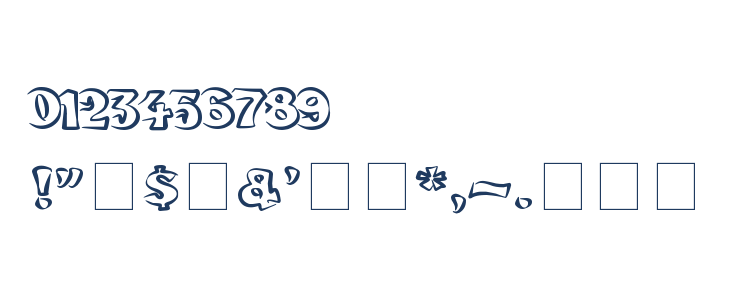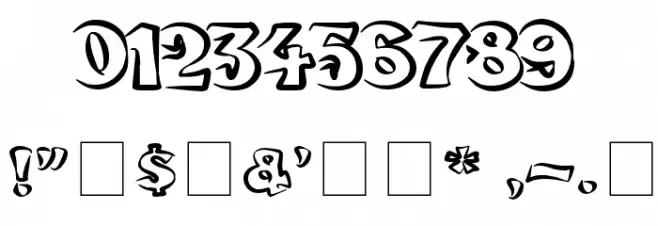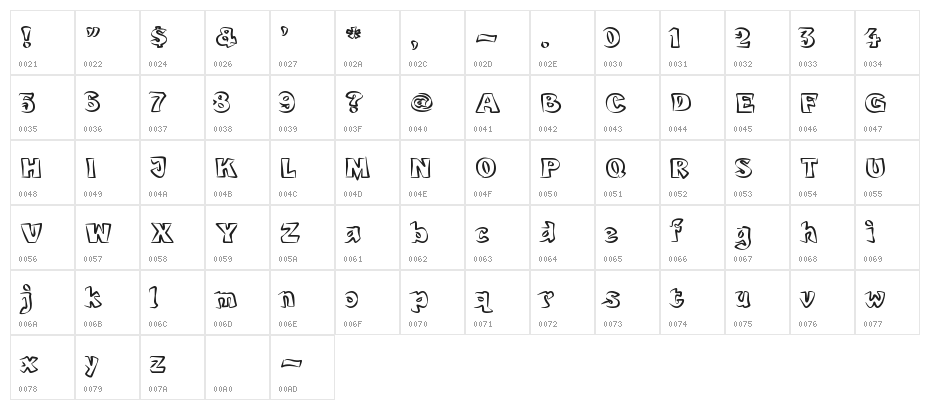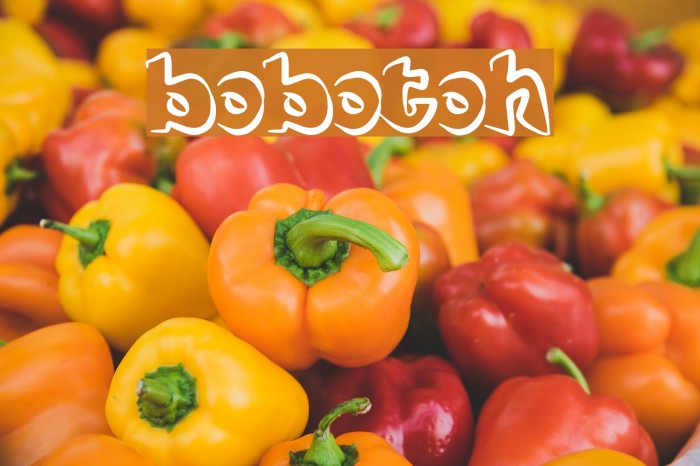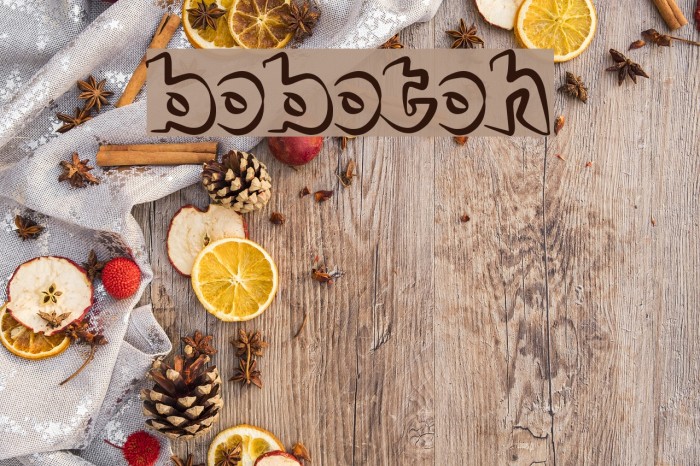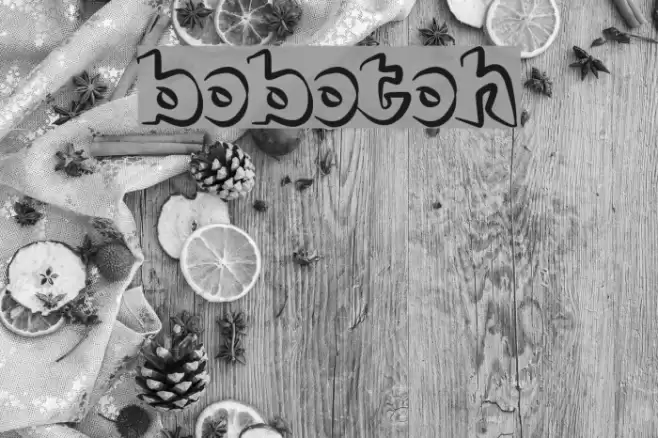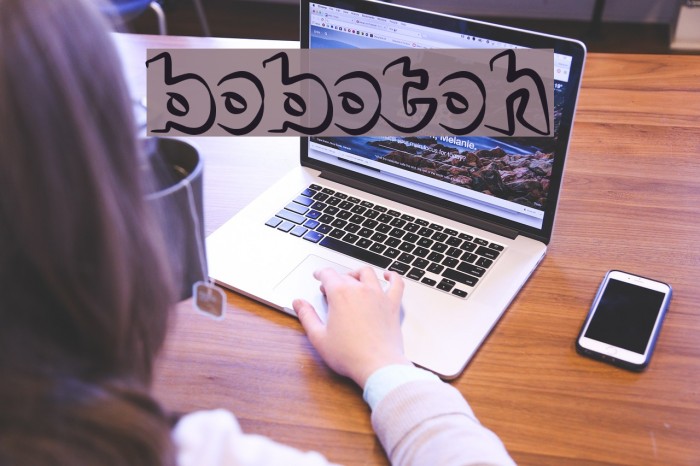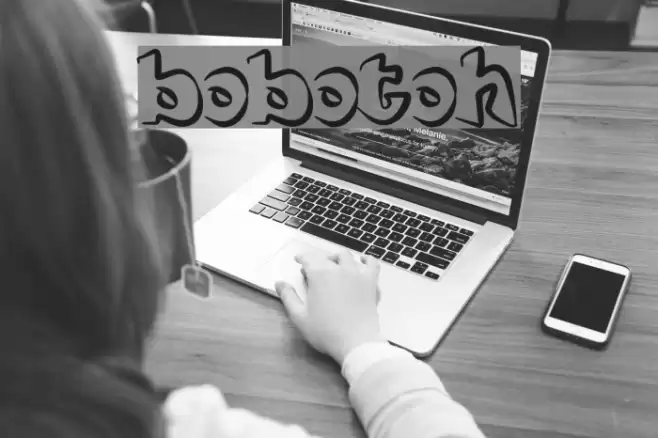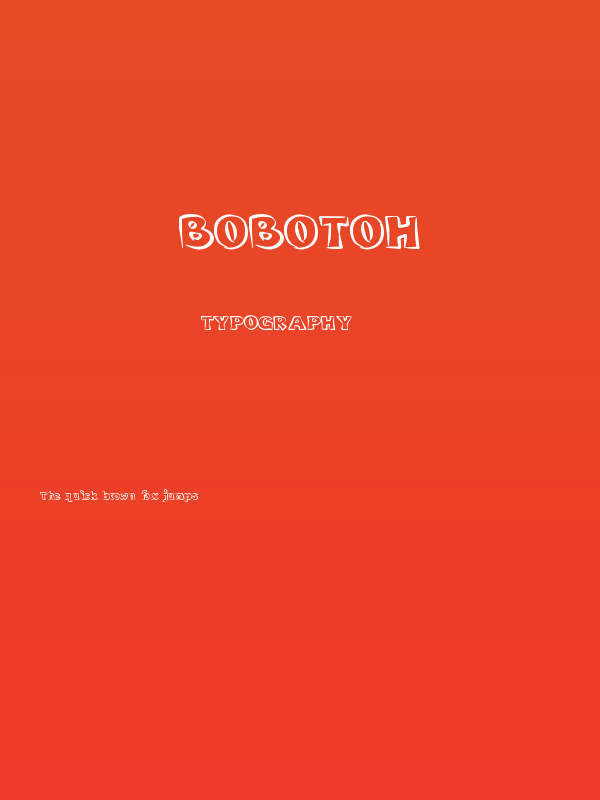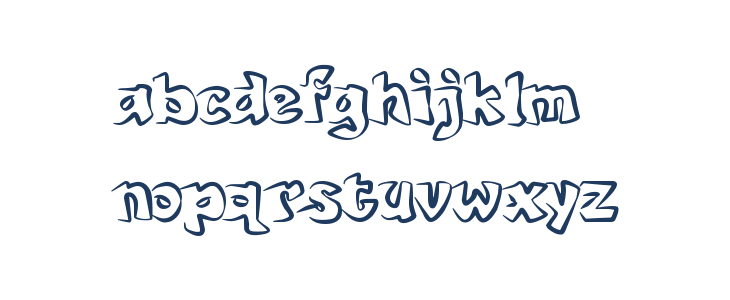
bobotoh Font
bobotoh Description
This font features a playful and bold design with a cartoonish flair. The characters are outlined with a thick black stroke, giving them a three-dimensional appearance. The letters are slightly irregular, adding a whimsical and informal touch. The uppercase and lowercase letters maintain a consistent style, with exaggerated curves and angles that enhance the font's lively personality. The numbers and special characters follow the same playful design, making them suitable for creative and fun projects. This font is ideal for capturing attention and conveying a sense of fun and excitement.
| Overall Style | Playful, Cartoonish |
| Proposed Projects | Ideal for children's books, comic strips, playful branding, and event posters. |